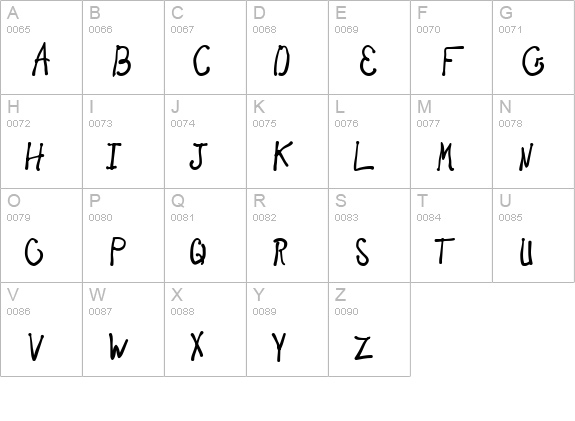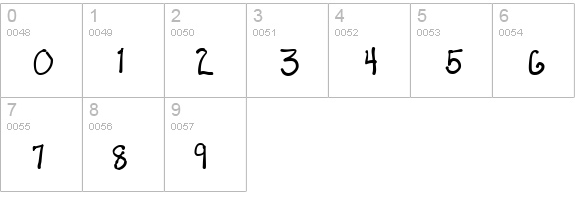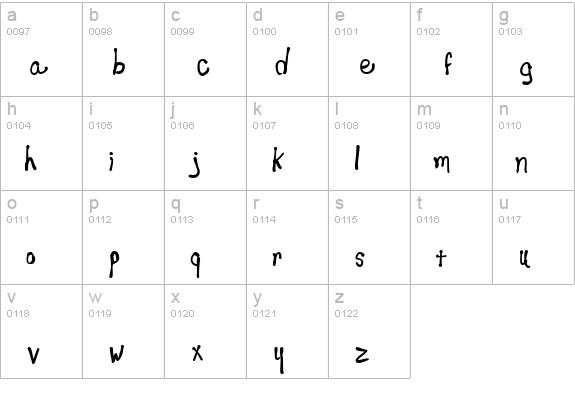
New Toy Font Details
Introducing New Toy font, a whimsical and playful typeface designed to bring a sense of fun and joy to your projects. This font features quirky and unique letterforms that are perfect for adding a touch of charm to any design. With its cheerful and energetic style, New Toy is sure to captivate your audience and make your content stand out. Best of all, New Toy font is available for free download at FontsMarket.com! This means you can easily access this delightful font and use it in your personal or commercial projects without any cost. So why wait? Add a touch of playfulness to your designs with New Toy font today!